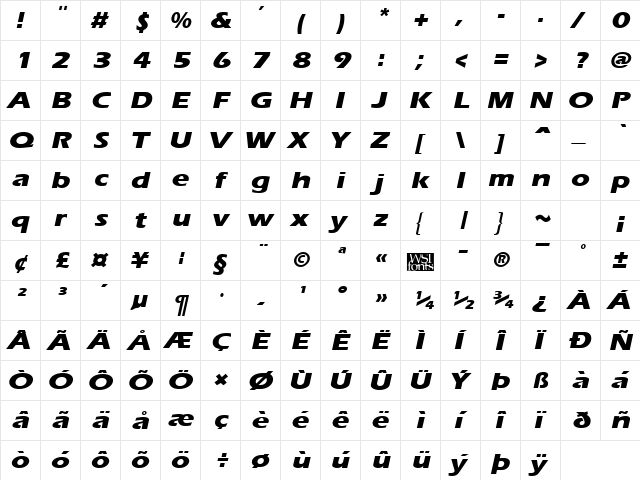
ErgoeExtraboldExpanded Italic
Design Context for ErgoeExtraboldExpanded Typeface
ErgoeExtraboldExpanded offers clean, dependable letterforms without strong stylistic allegiance, making it a practical choice for designers who need flexibility. The dynamic lean of this cut emphasises speed and emphasis in any layout. Its bold stroke weight gives it real presence on the page.
Pro Tip: Use ErgoeExtraboldExpanded for emphasis, pull quotes, and subheadings where its slanted energy can add rhythm to the layout.